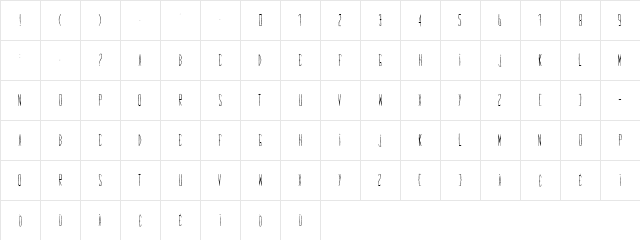
First Italic
Foundry: Antonio Locicero
Design Context for First
First is a composed and adaptable typeface that performs quietly and consistently across a wide range of design contexts. The slanted form adds forward momentum and visual energy.
Pro Tip: Use First for emphasis, pull quotes, and subheadings where its slanted energy can add rhythm to the layout.